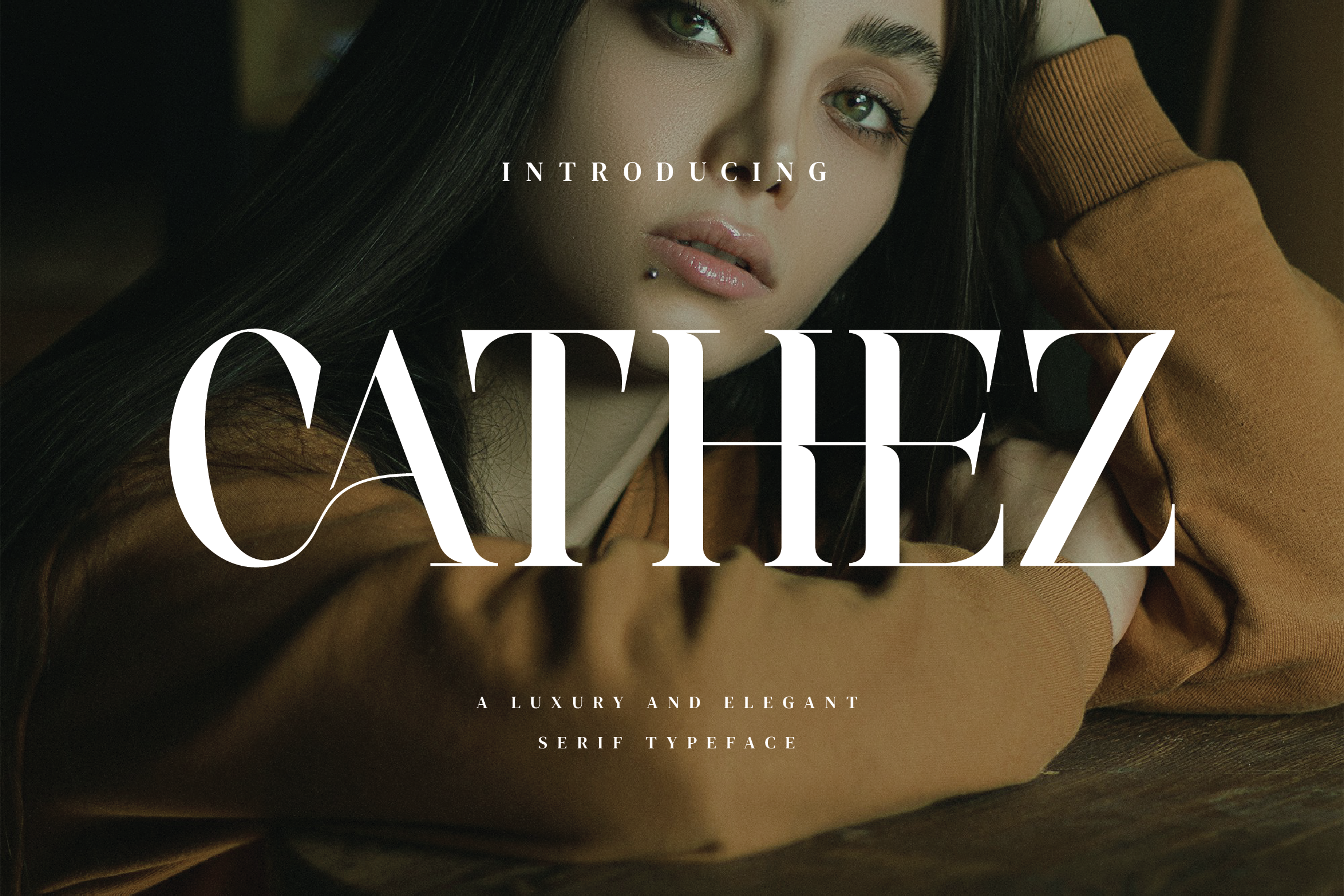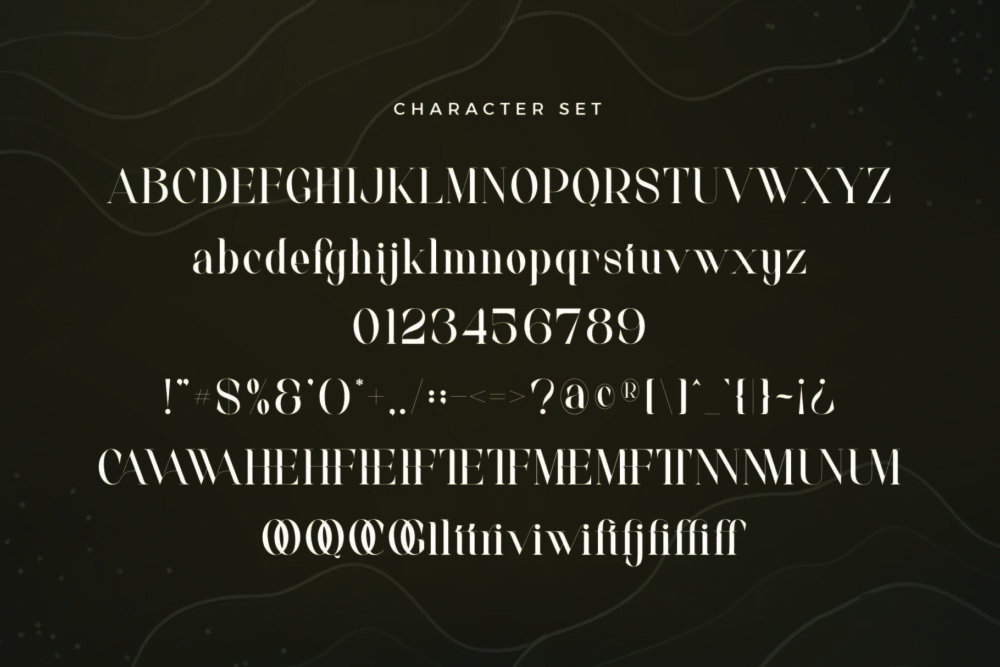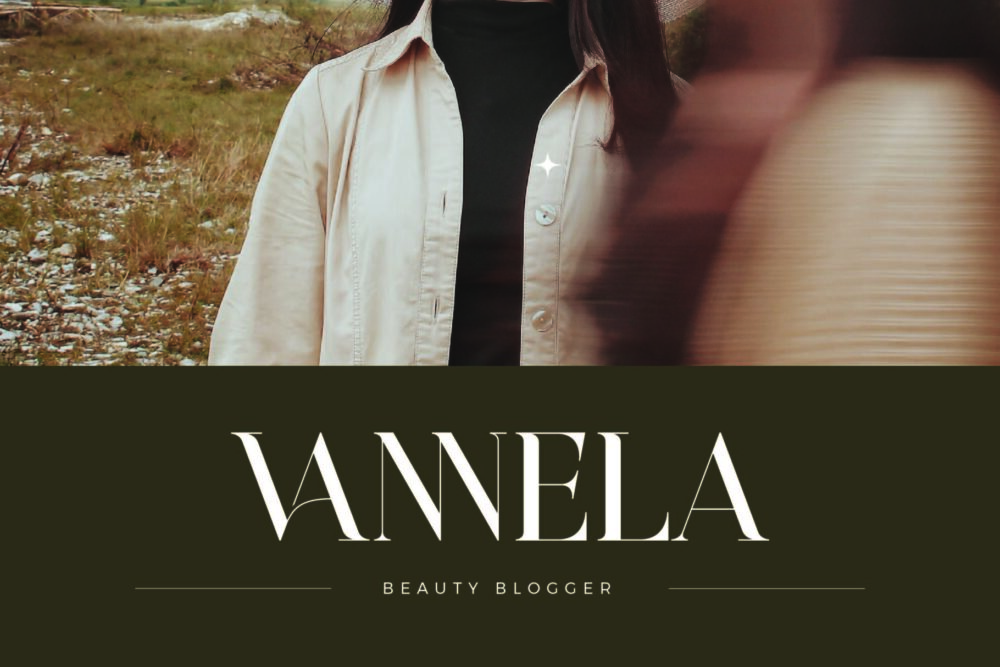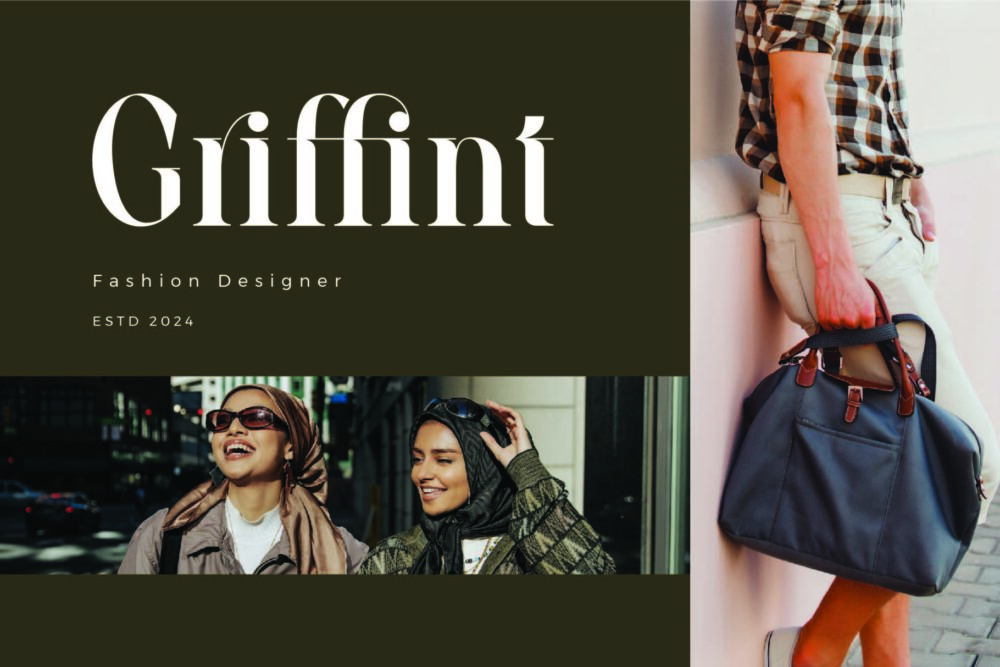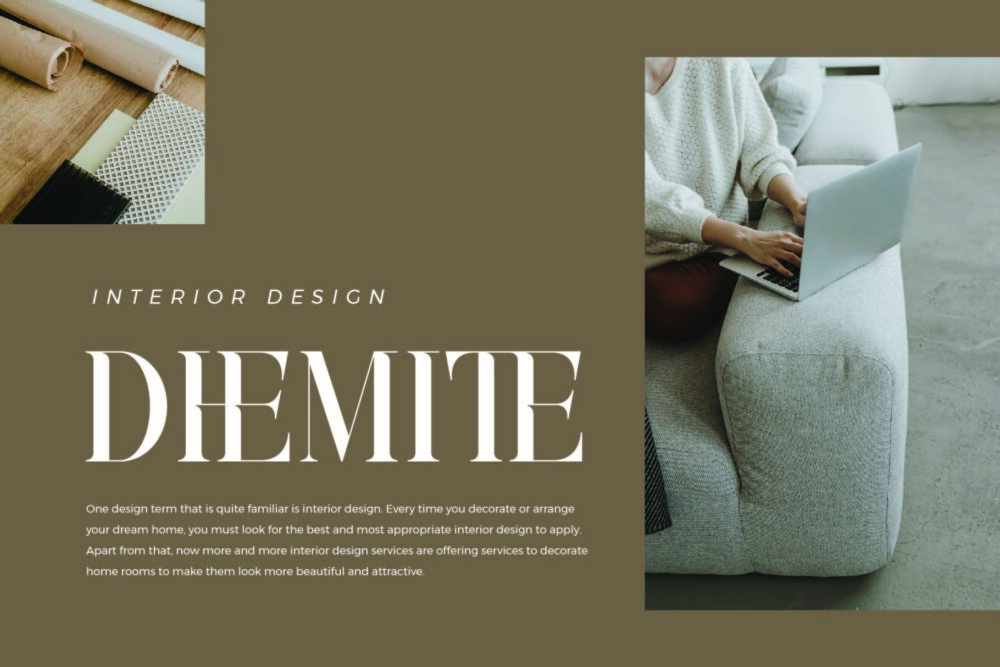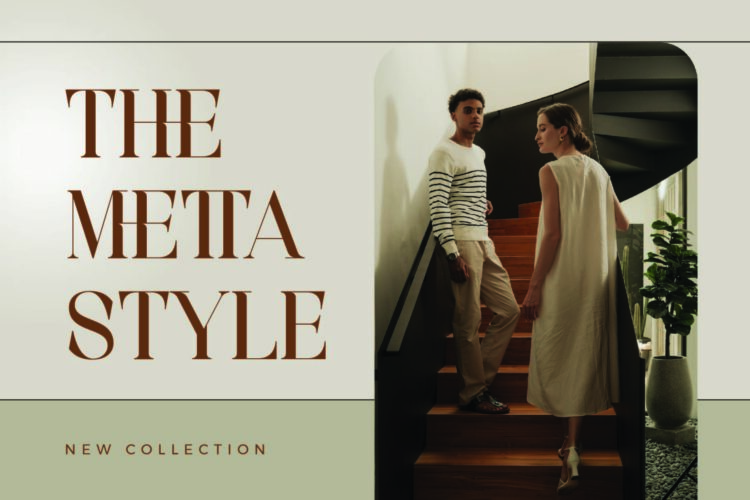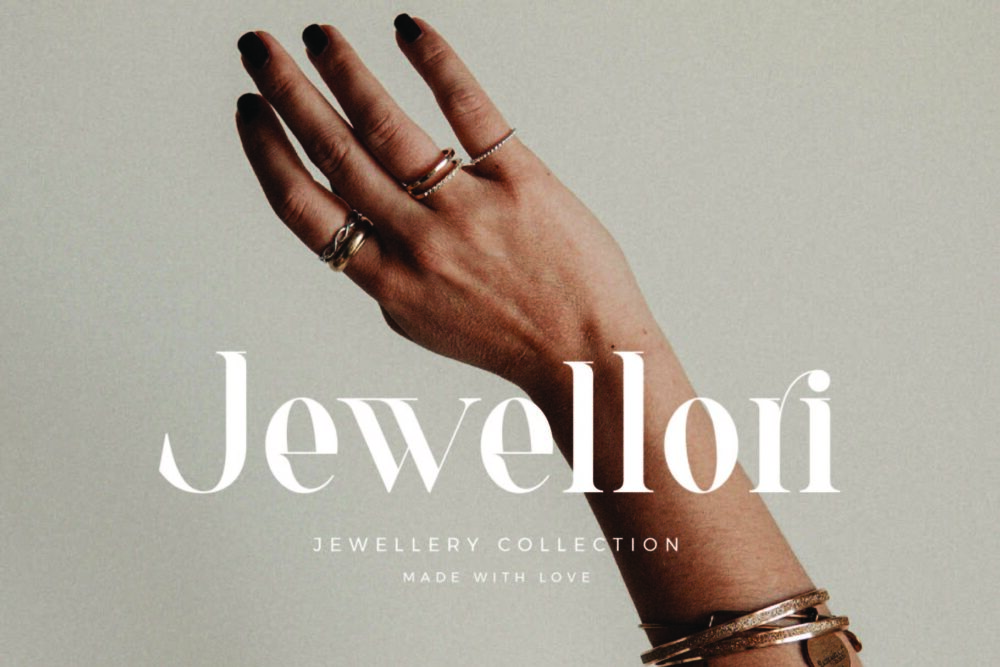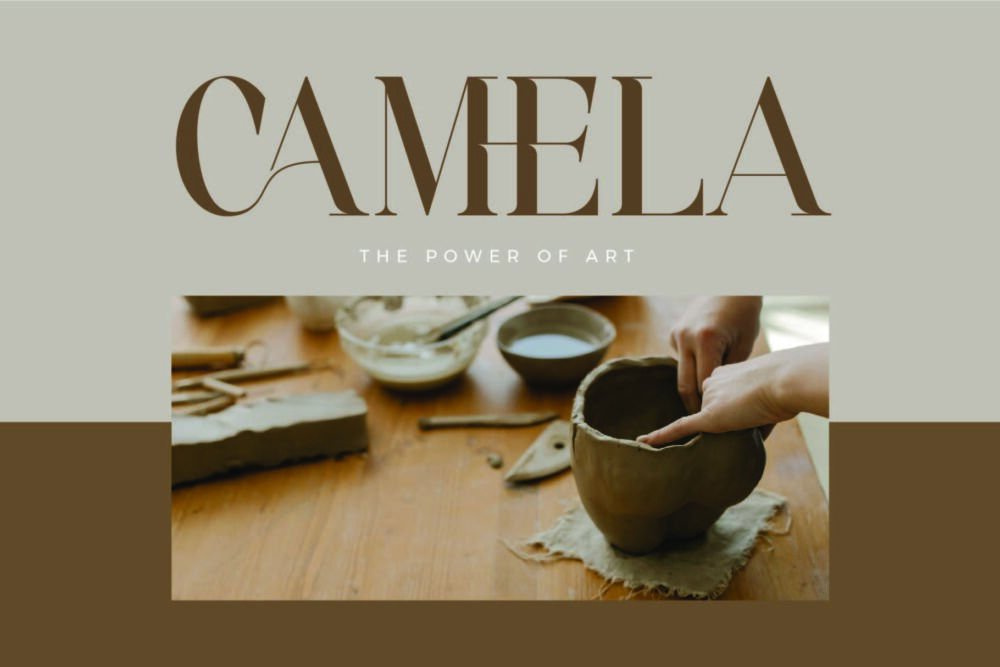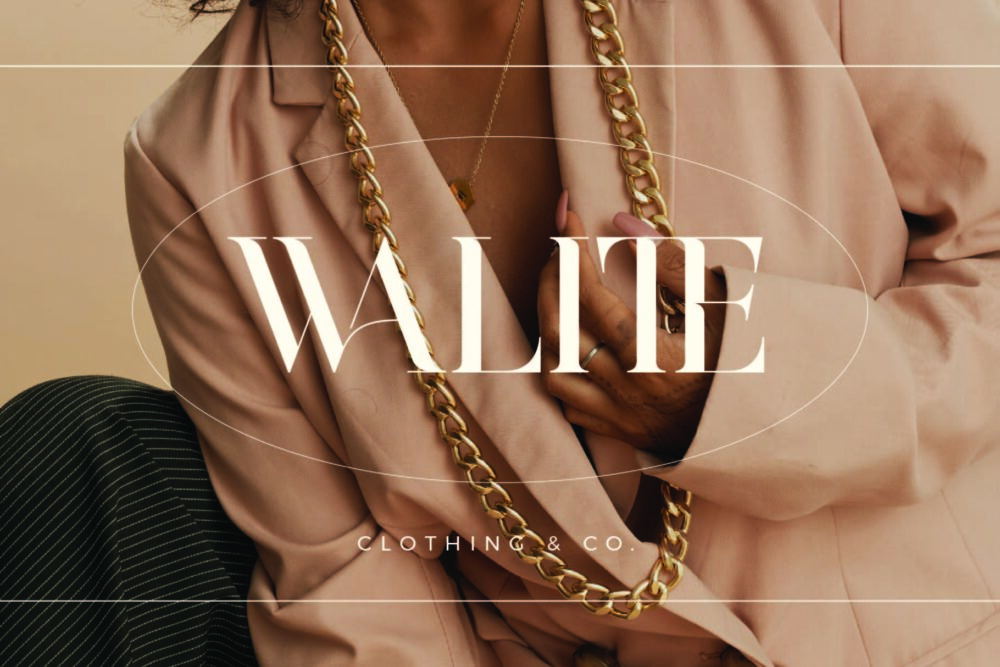
Cathez
Cathez Stylish Ligature Typeface, inspired by the famous minimalist logo perfect for the purposes of designing templates, brochures, videos, advertising branding, logos and more.
Cathez – Luxury Elegant Serif Font